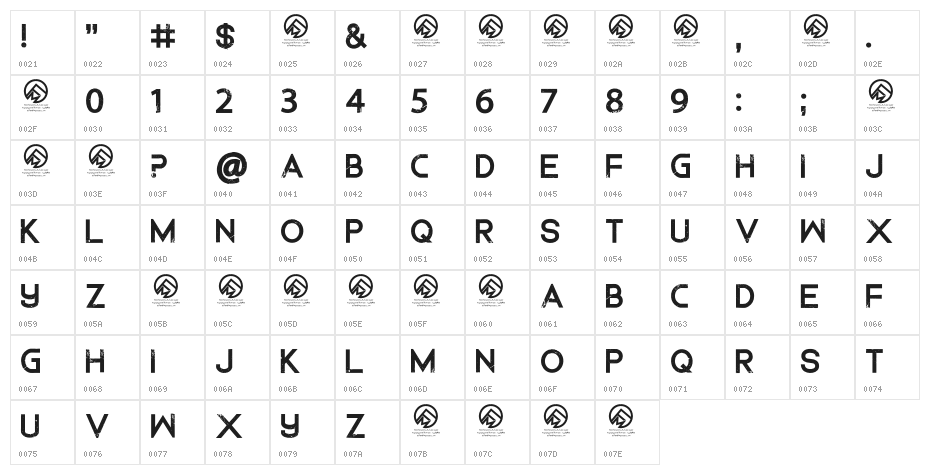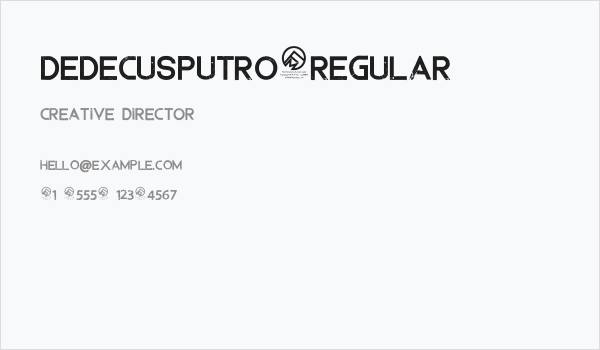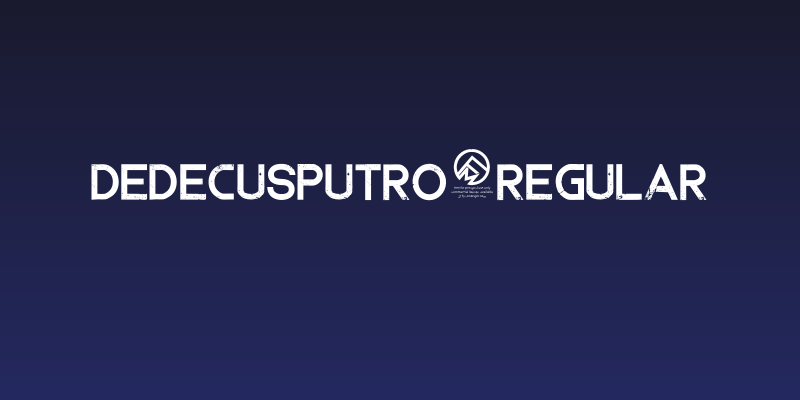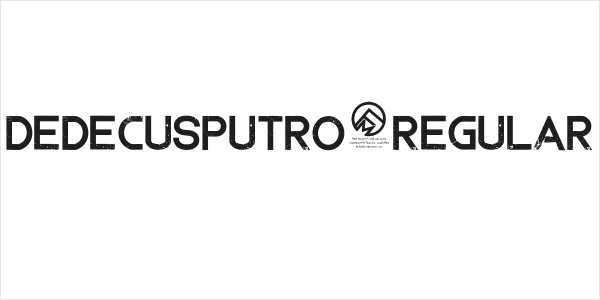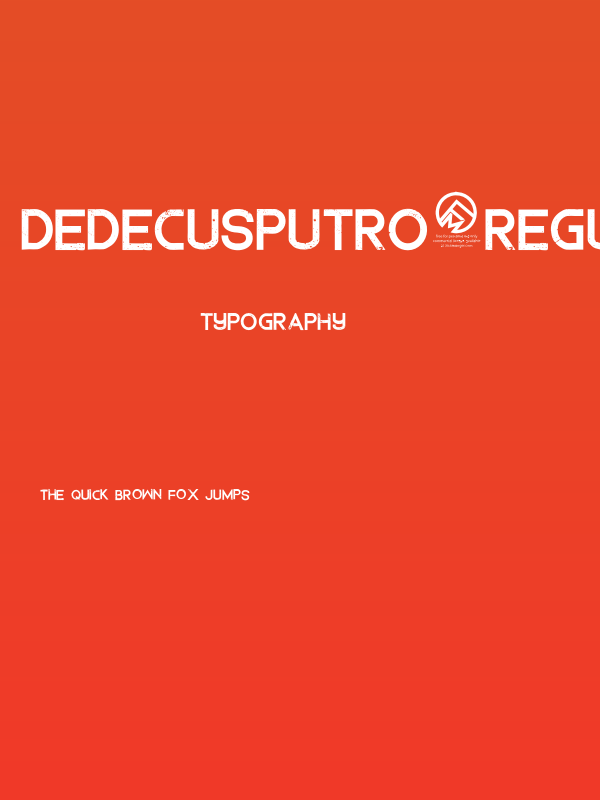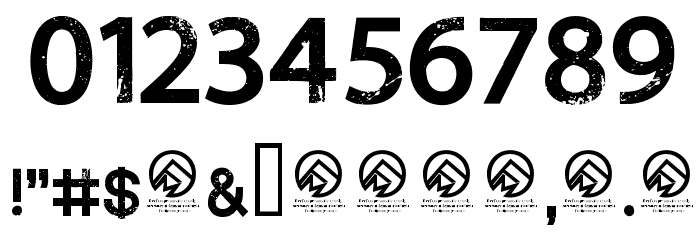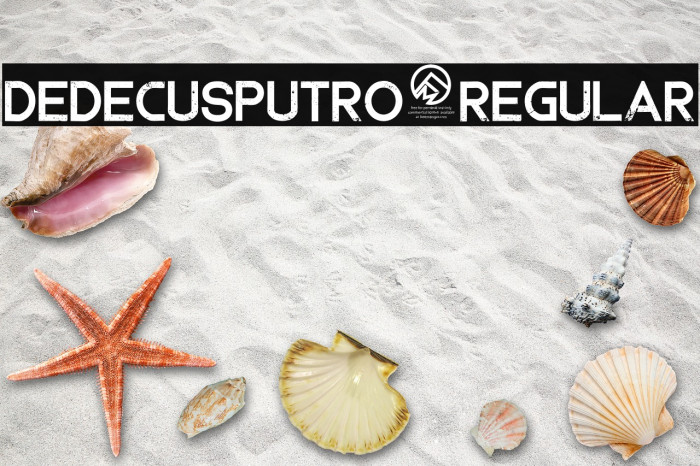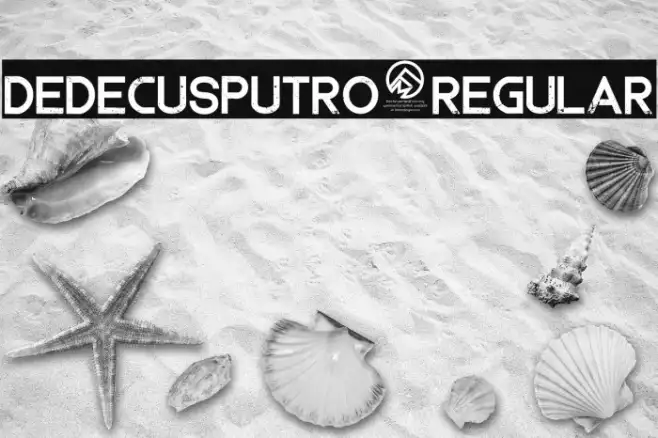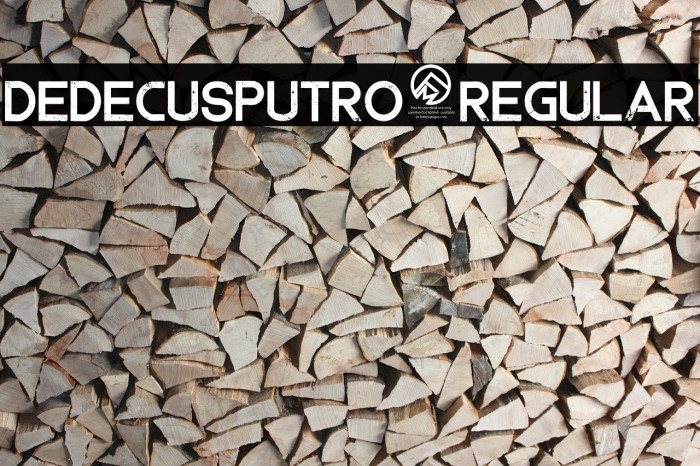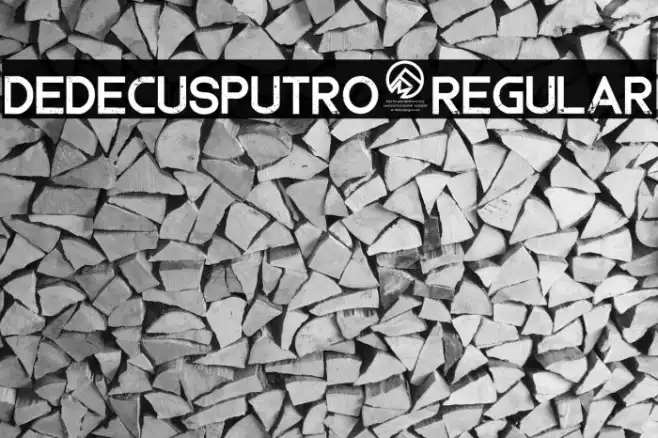
DedecusPutro-Regular Font
DedecusPutro-Regular Description
This font features a bold, distressed style with a rugged, textured appearance that gives it a vintage and worn look. The uppercase and lowercase letters are designed with a consistent width, creating a uniform appearance across the alphabet. The numbers and special characters maintain the same distressed aesthetic, enhancing the overall cohesive look. The font's boldness and unique texture make it stand out, ideal for projects that require a strong visual impact. Its design is reminiscent of old printing techniques, adding a nostalgic feel to any design.
| Proposed Projects | Ideal for branding, posters, album covers, and any project needing a vintage or rugged aesthetic. |